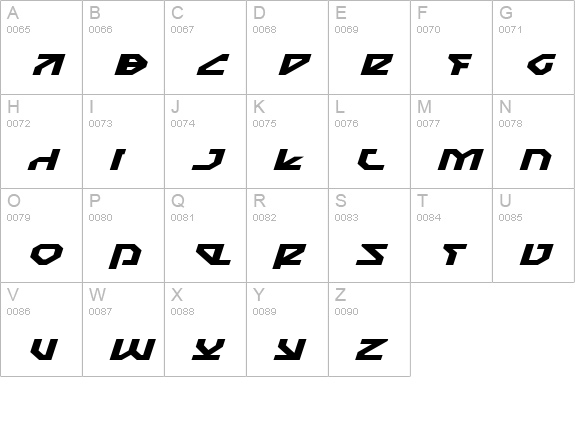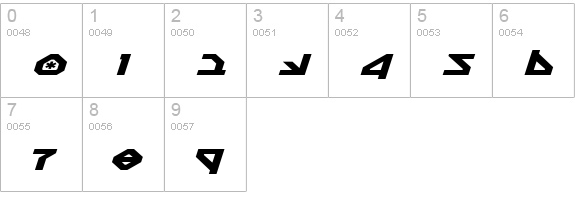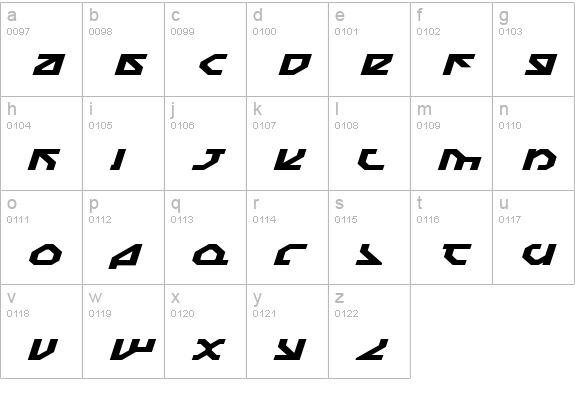
Nostromo Expanded Italic is a distinctive, extended-width, italic variant in the Nostromo typeface family \xE2\x80\x94 well suited to design and typography projects.
Nostromo Expanded Italic font is a modern and stylish typeface that exudes elegance and sophistication. With its sleek and elongated letterforms, this font is perfect for adding a touch of class to any design project. The italic styling adds a sense of dynamism and movement to the text, making it ideal for conveying a sense of energy and creativity. What's even better is that Nostromo Expanded Italic font is available for free download at FontsMarket.com. This means that you can easily add this beautiful typeface to your collection without having to spend a dime. So why wait? Download Nostromo Expanded Italic font today and elevate your designs to the next level!